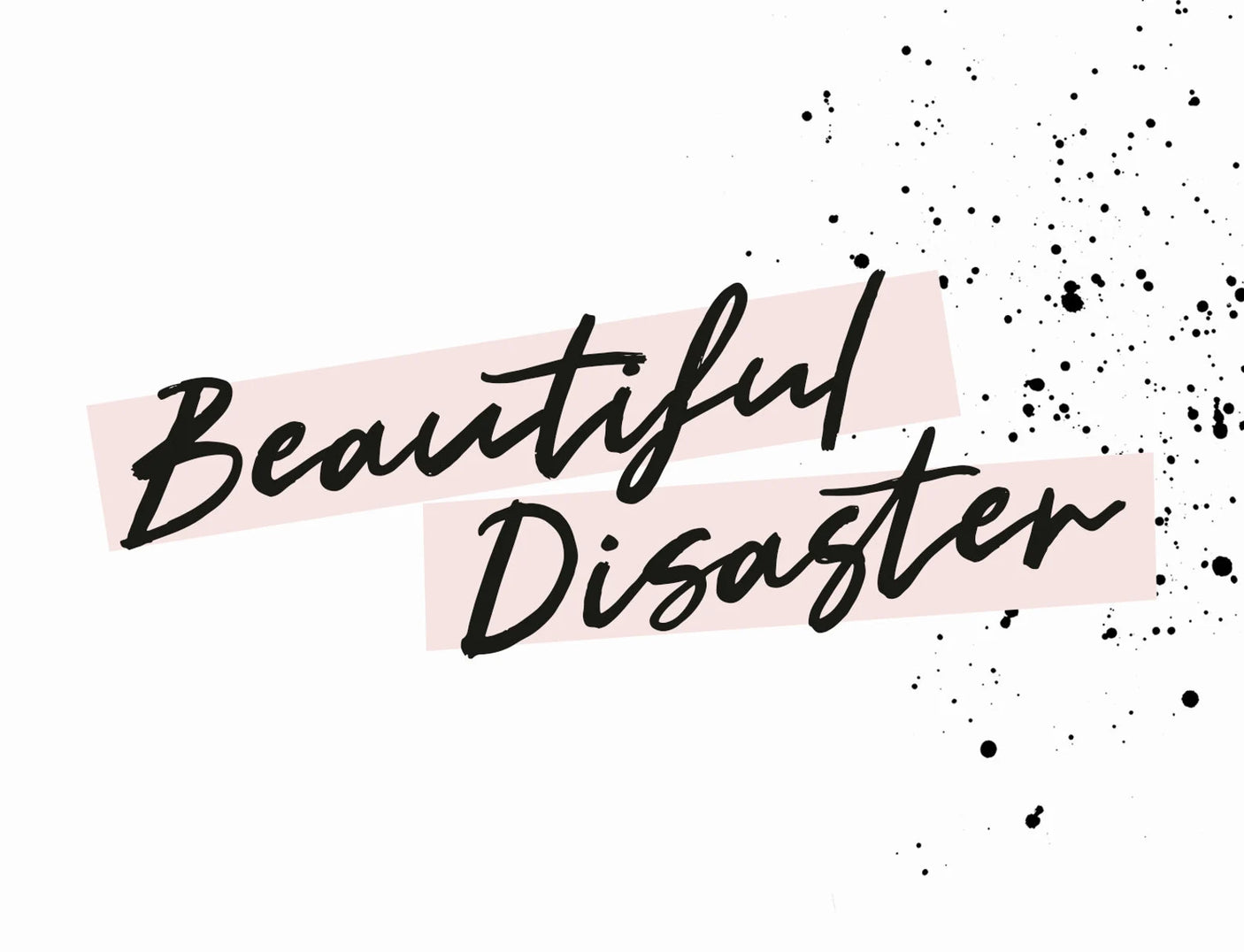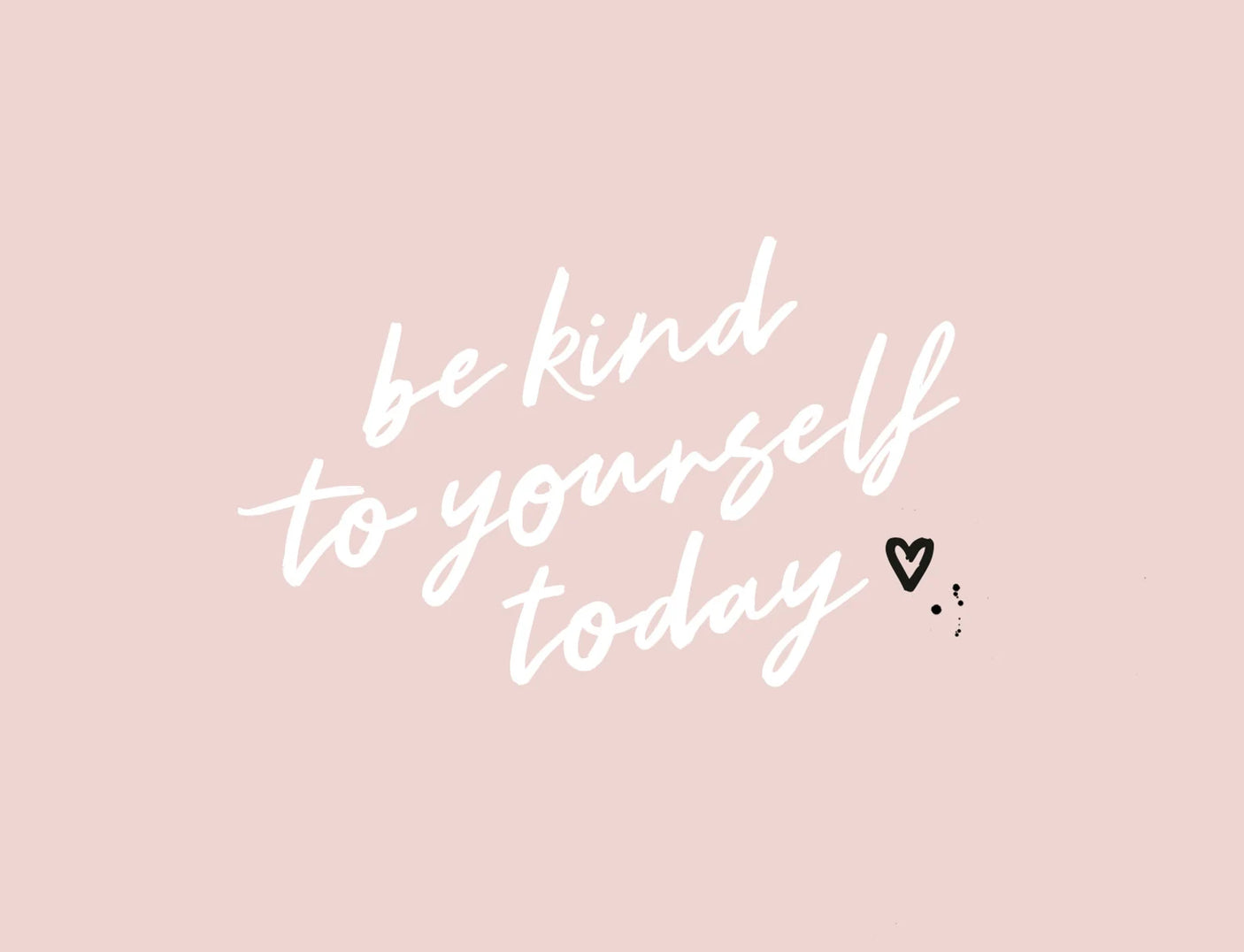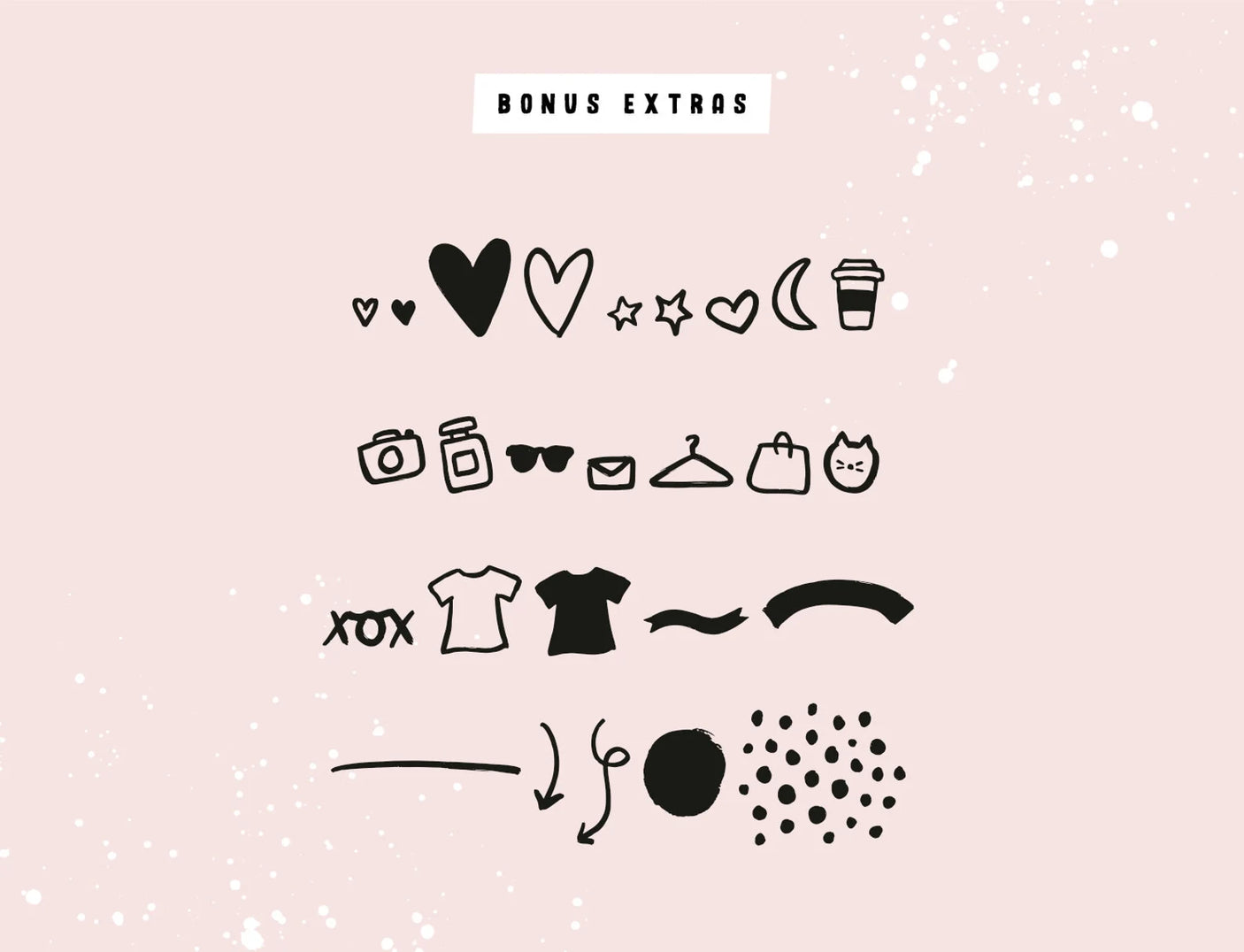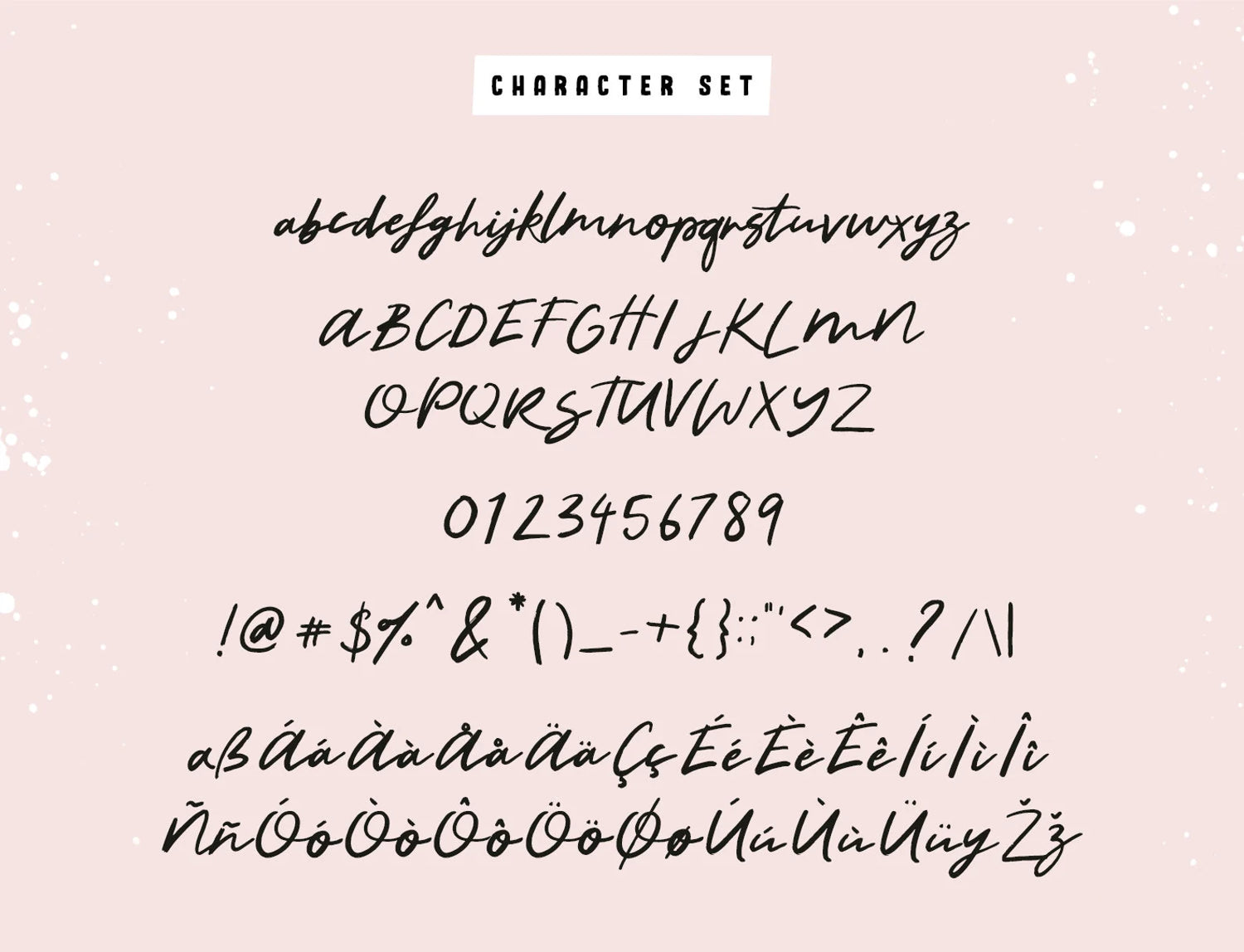
Beautiful Disaster Font
Enhance your designs with Beautiful Disaster, a stunning brush script font. This creative font will add a touch of artsy charm to any project. Perfect for logos, branding, and more, this font will make your designs truly stand out.
Achieve a hand-lettered style of writing in a paint brush effect easily, with a font that does all the work for you. Say goodbye to time-consuming and difficult hand-lettering and hello to professional and eye-catching designs.
The Extras font includes a selection of clipart to use when typing from lowercase a to z.